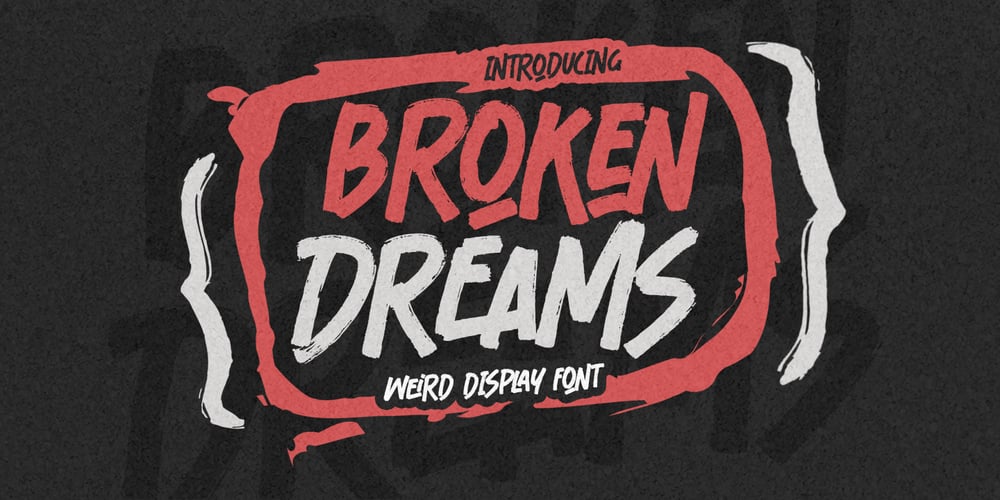
Broken Dreams Font Family was designed by Abdul Malik Wisnu, Anang Fibriyanto and published by Gassstype. Broken Dreams contains 1 styles and family package options. Here comes a New font, Introducing Broken Dreams It’s Weird Display Font is a Natural Brush Style and Authentic classy style, this font is great for your creative projects such as watermark on photography, and perfect for logos & branding, invitation,advertisements,product designs, stationery, wedding designs,label ,product packaging, special events or anything that need handwritting taste.Broken Dreams is a Brush Hand Drawn feel. This handmade font will make your design has a beautiful natural touch for each details. It is perfect for any design project as Invitation,logo, book cover, craft or any design purposes,photos, photography overlays, signs, window art, scrapbooking, tags and so much more!It is perfect for any design project as Invitation,logo, book cover, craft or any design purposes.